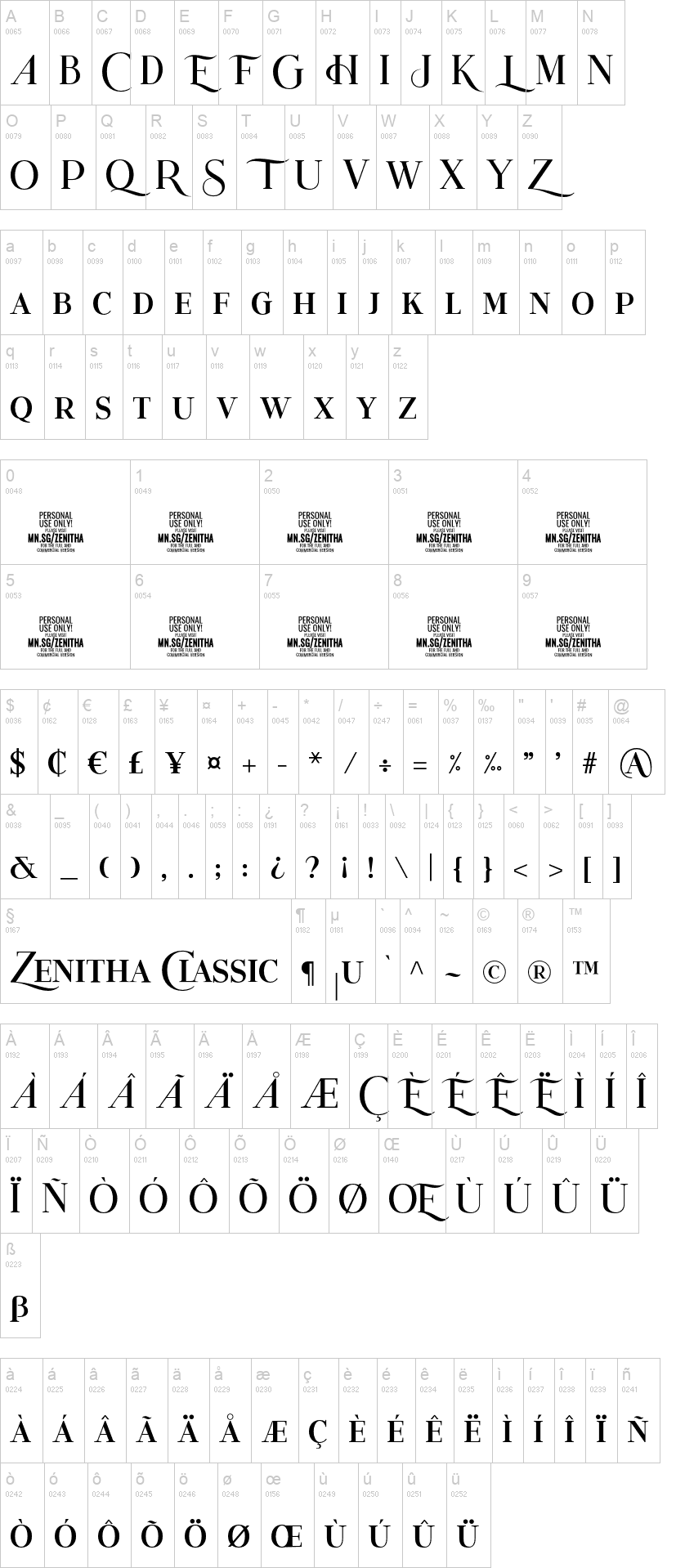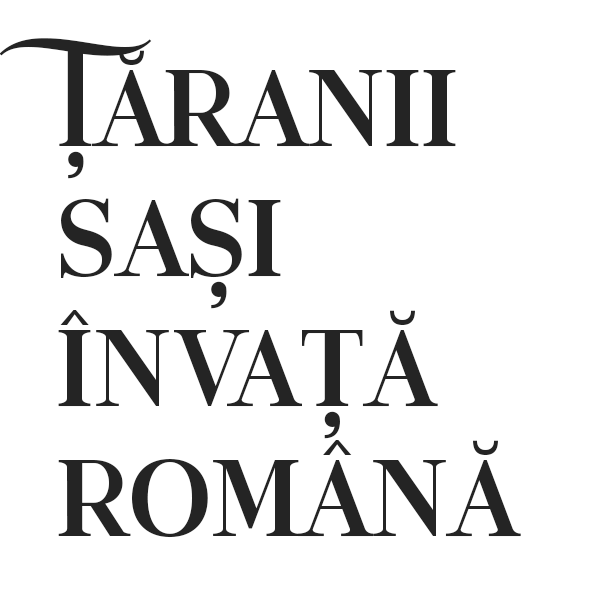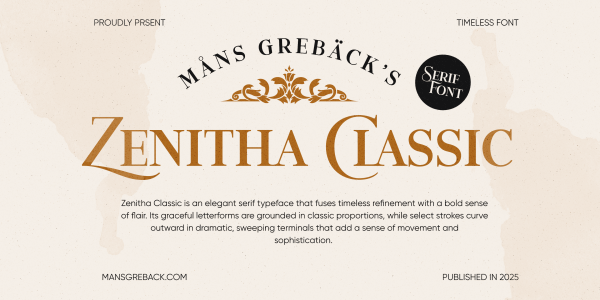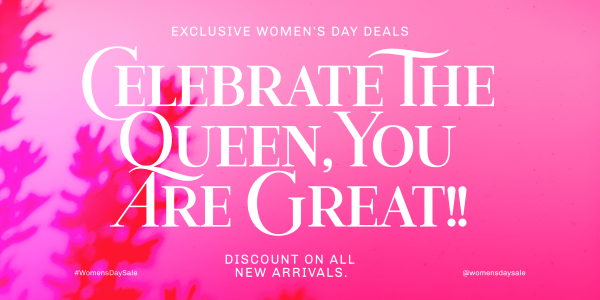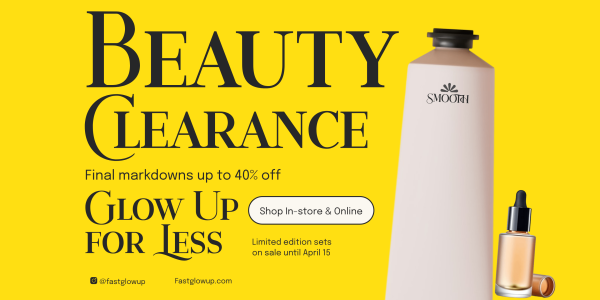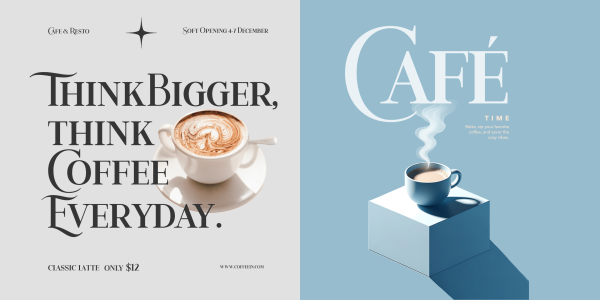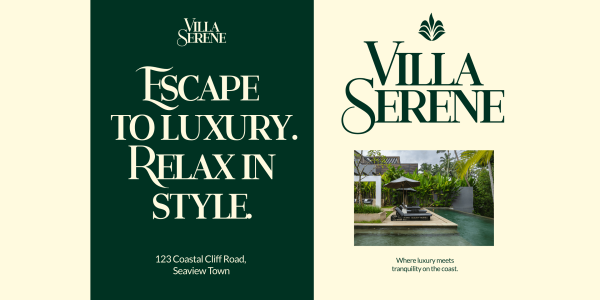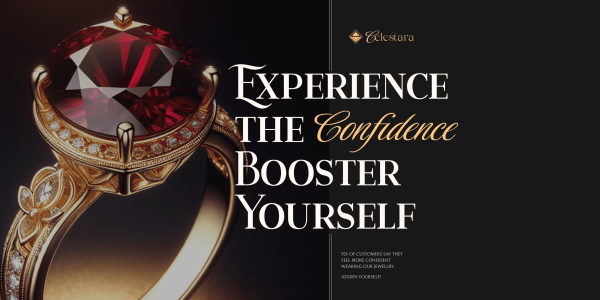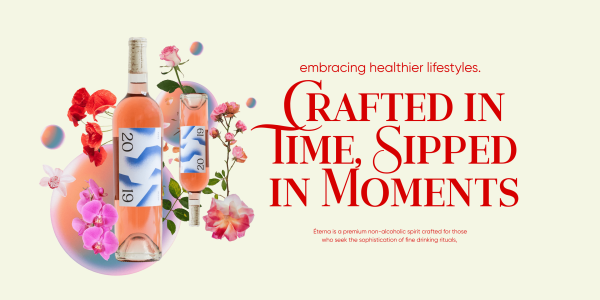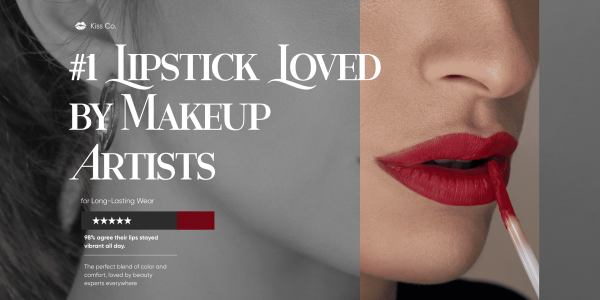
Zenitha Classic is an elegant serif typeface that fuses timeless refinement with a bold sense of flair.
Its graceful letterforms are grounded in classic proportions, while select strokes curve outward in dramatic, sweeping terminals that add a sense of movement and sophistication.